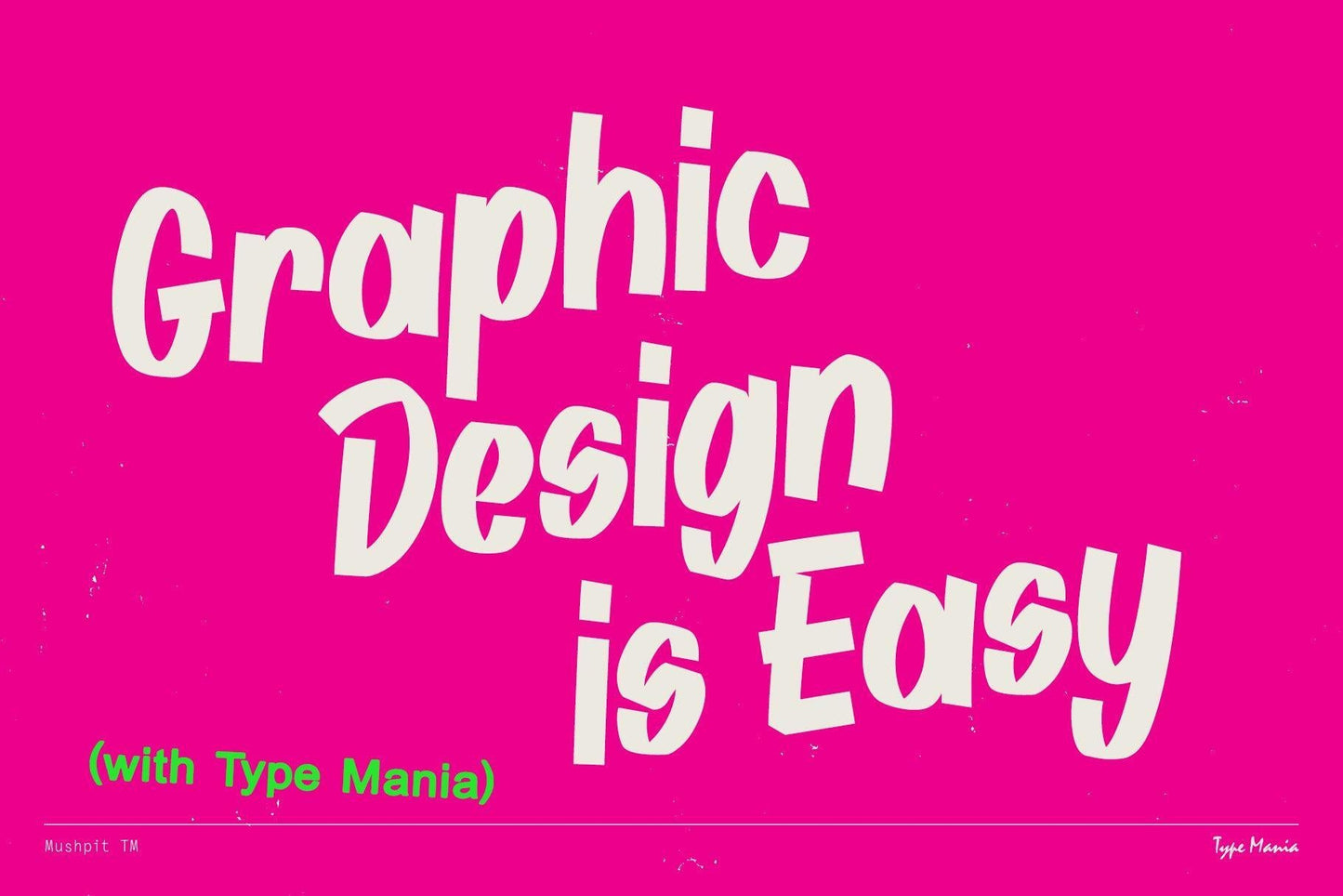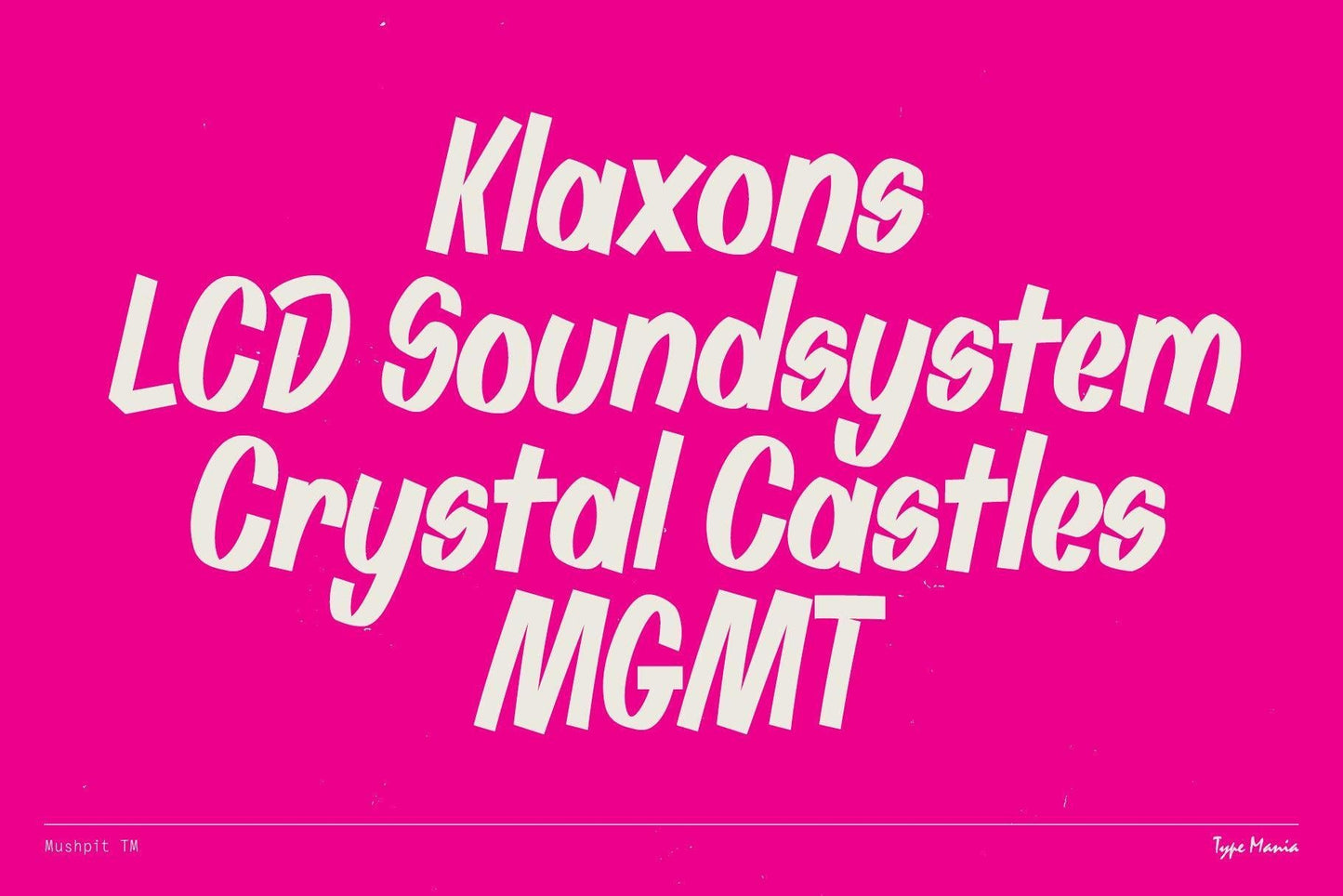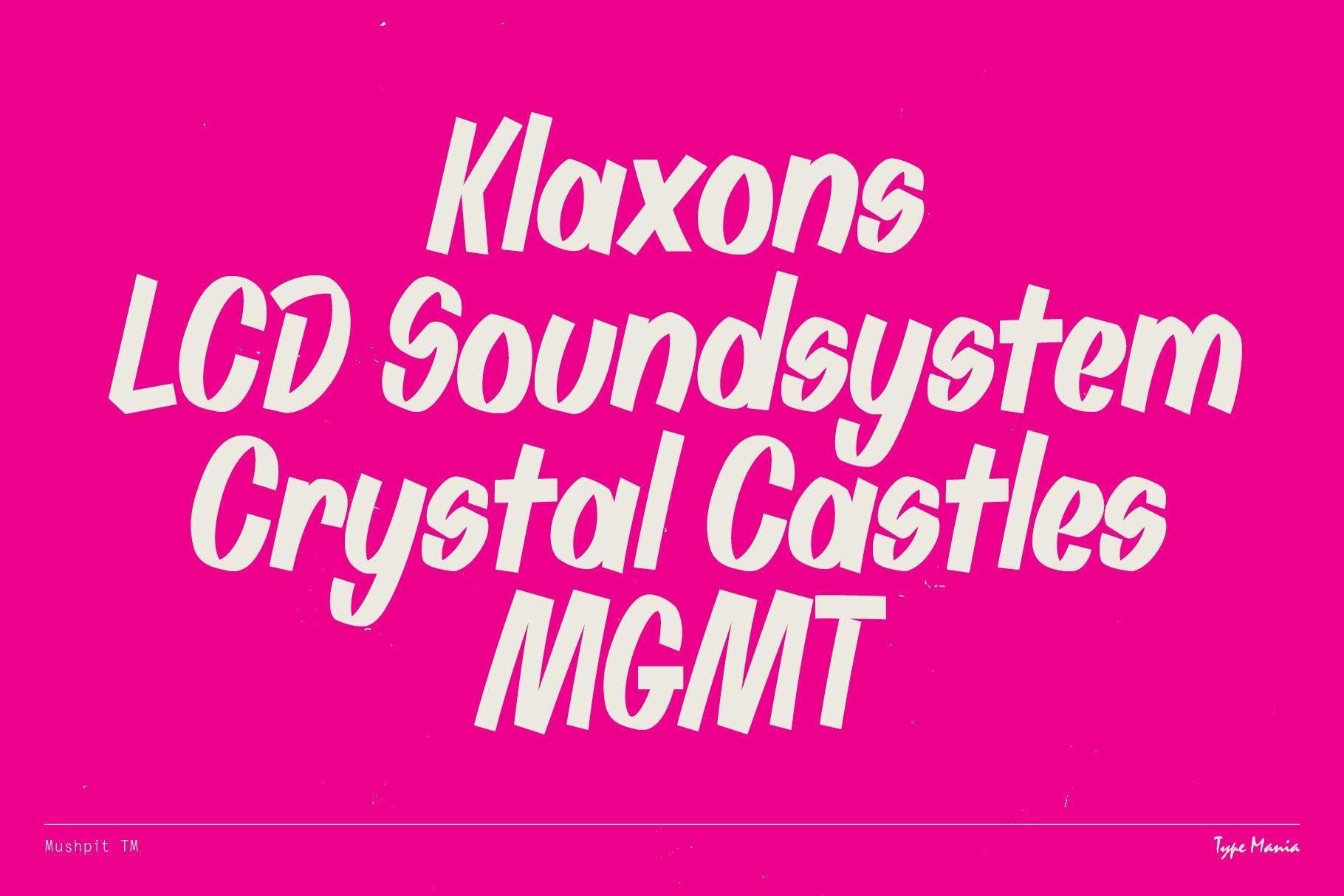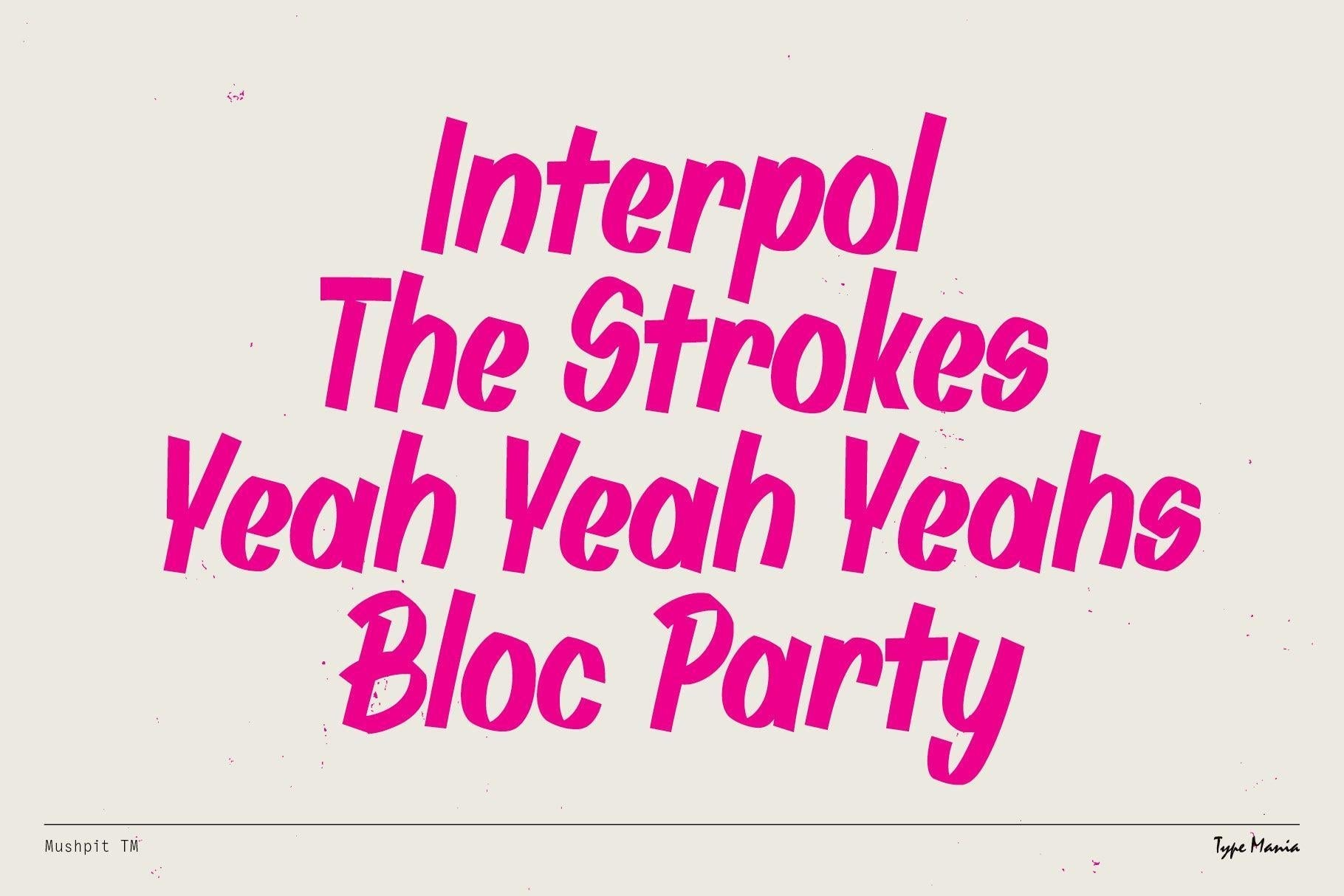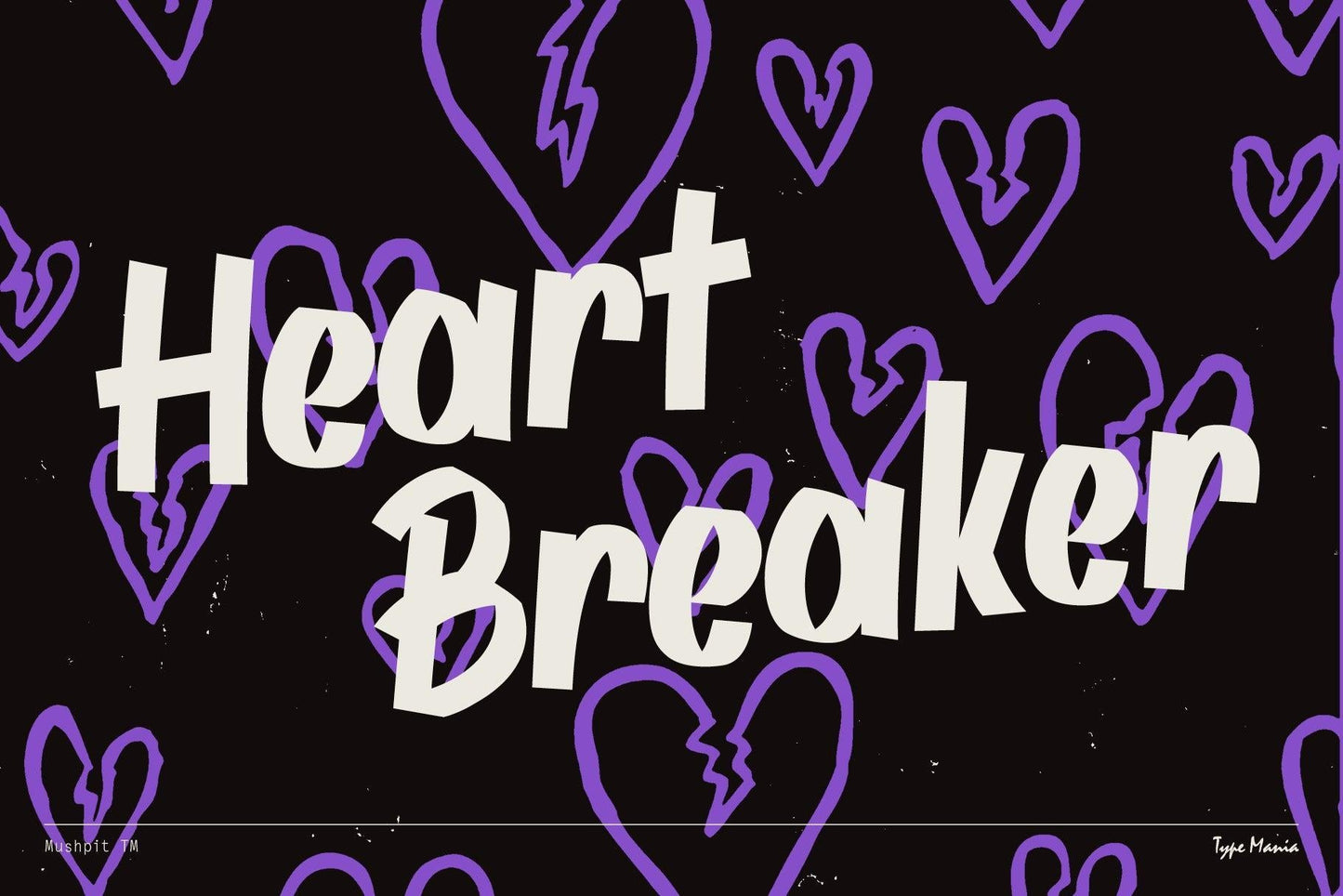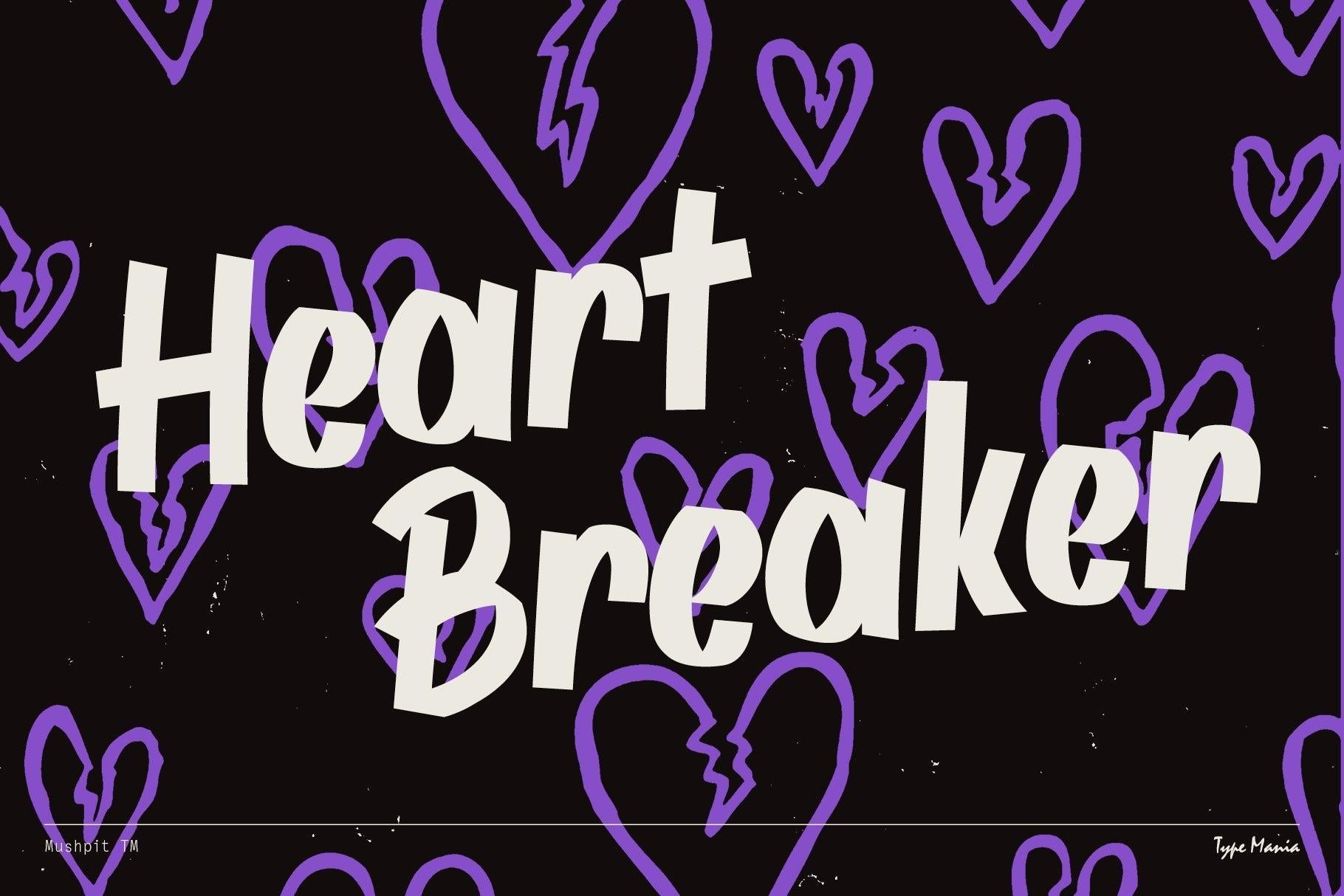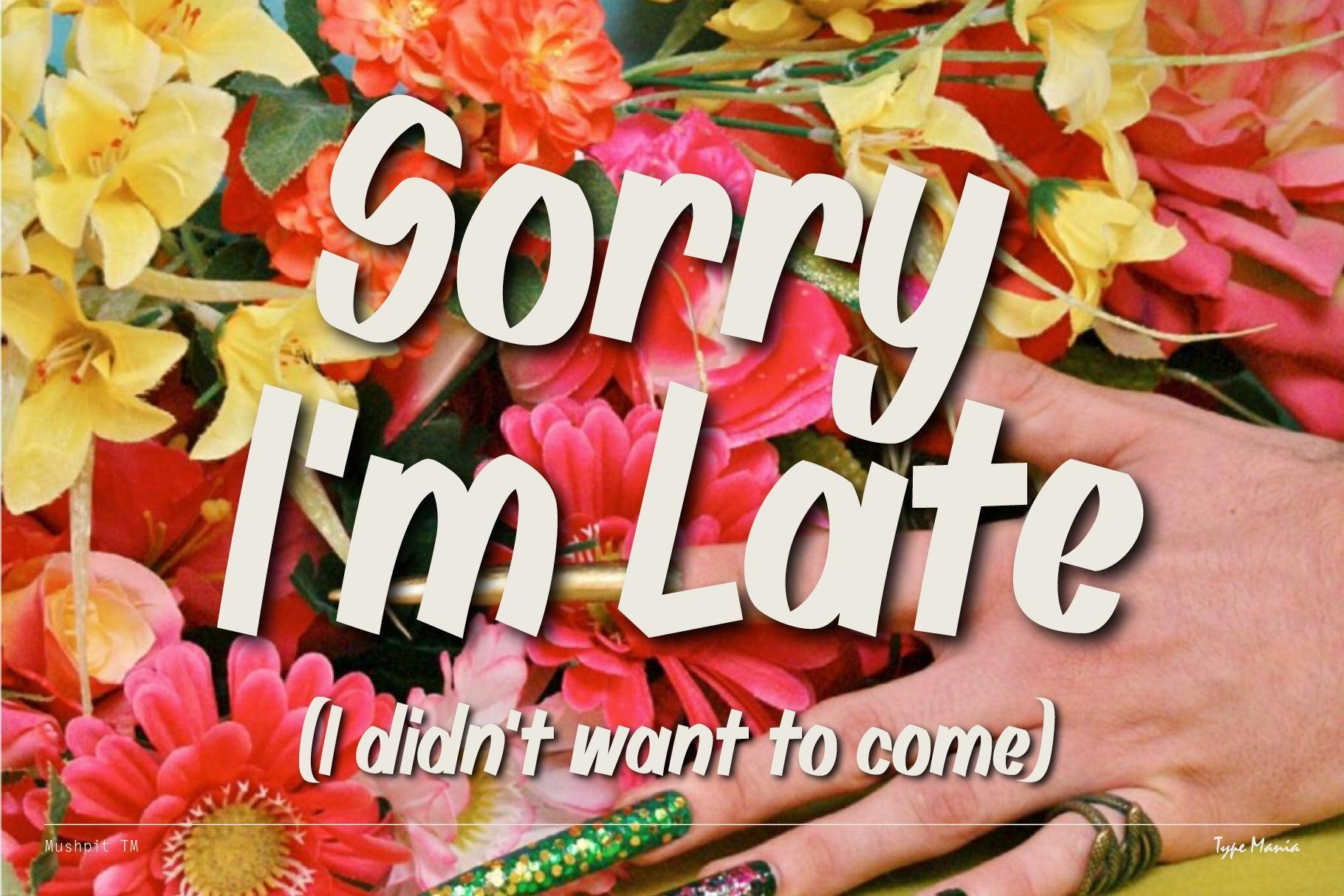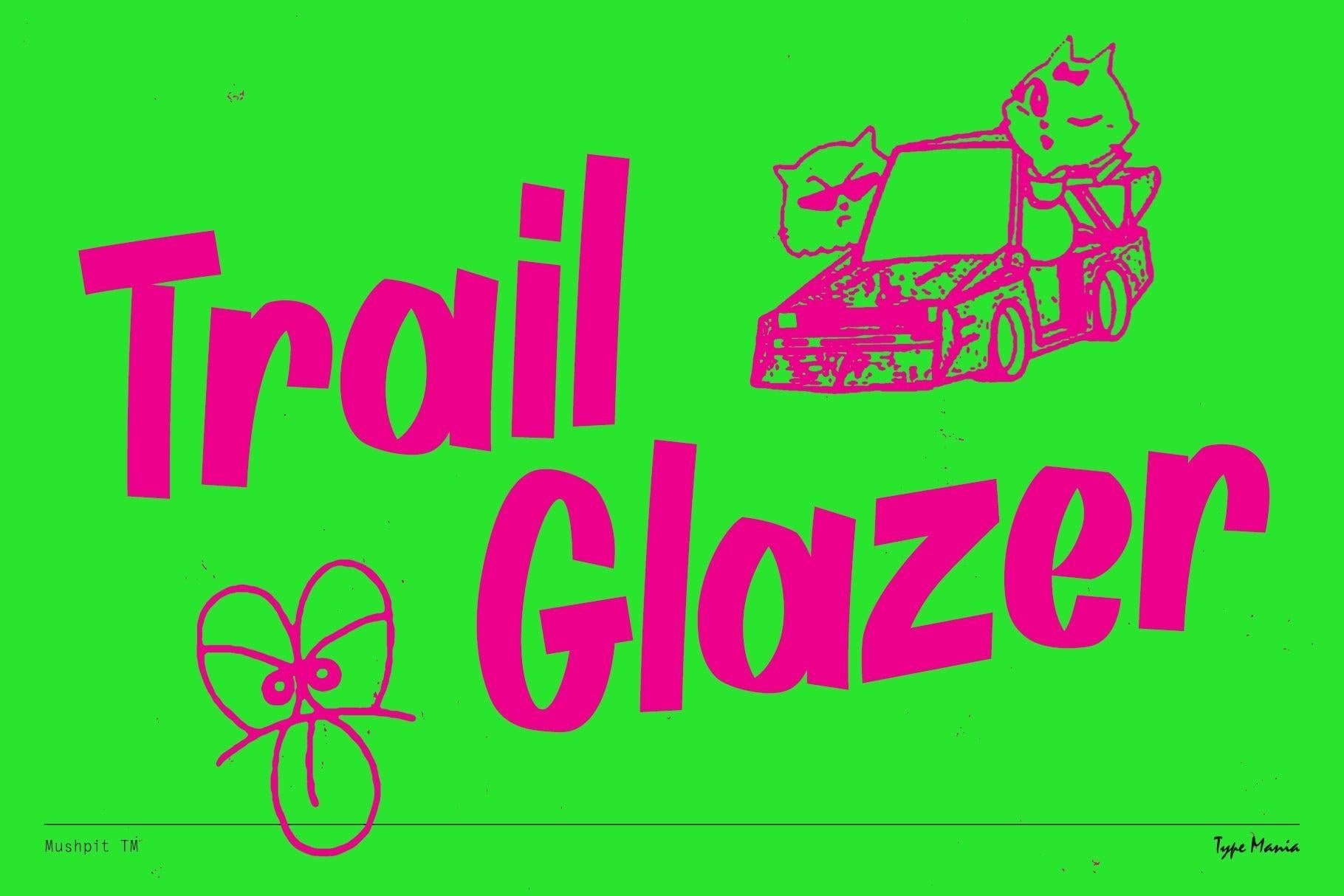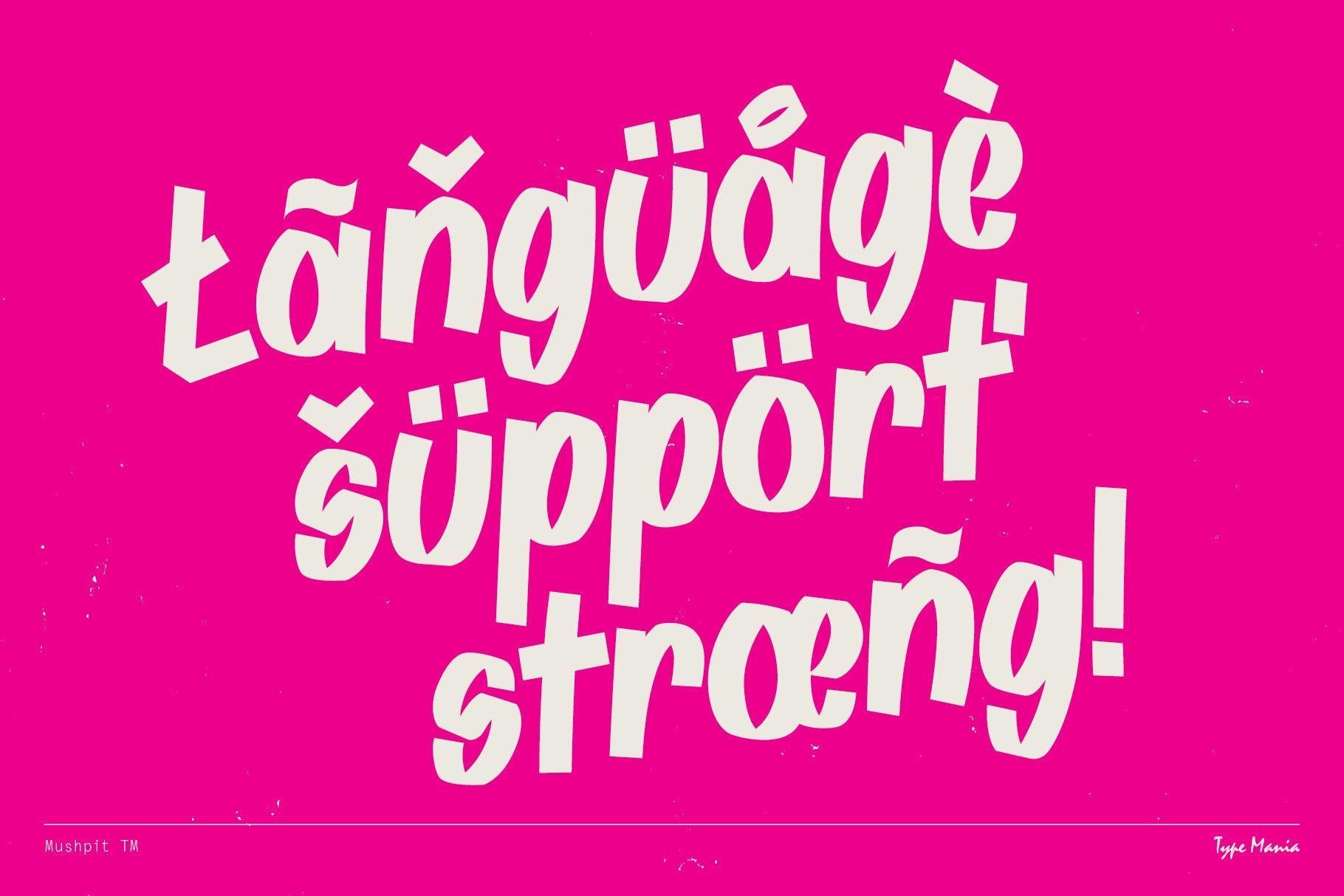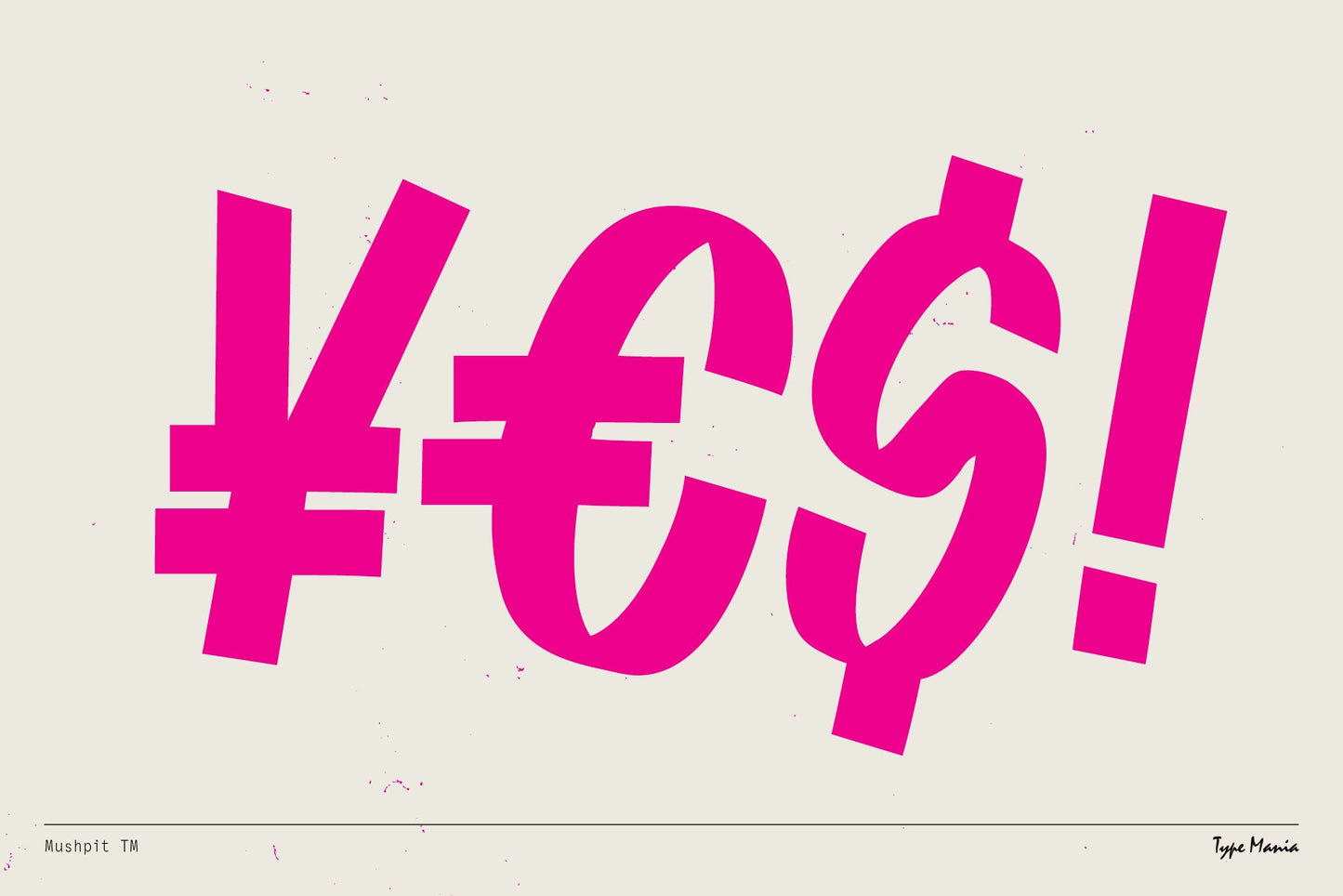
Mushpit TM
Get familiar with Mushpit TM—the grubby marker font from Type Mania. Bold without trying too hard, rough but intentional. Designed for those who trust instinct over perfection. No filter.